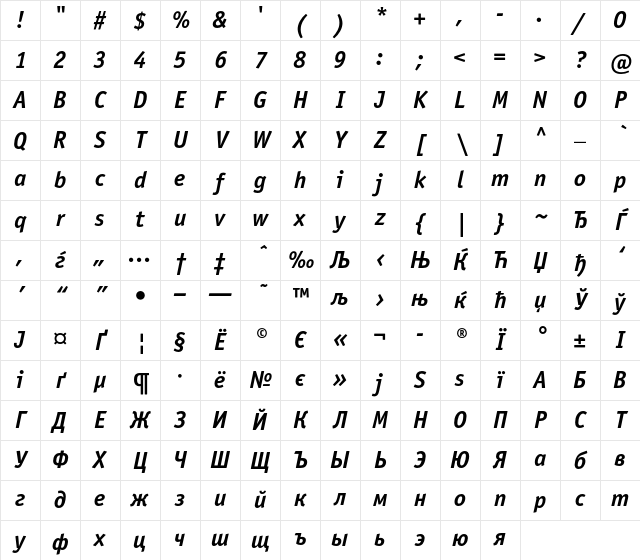
OfficinaSansC Regular
Design Context for OfficinaSansC
OfficinaSansC is a composed and adaptable typeface that performs quietly and consistently across a wide range of design contexts.